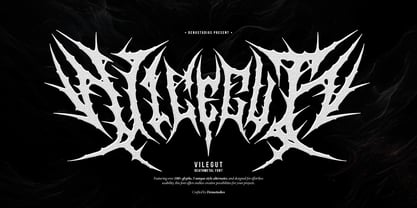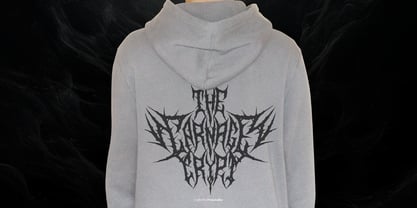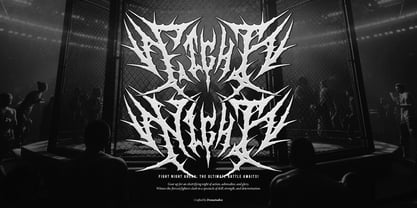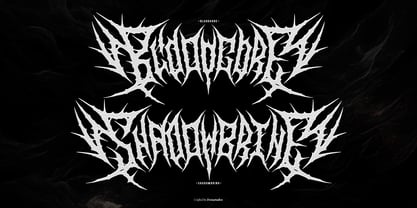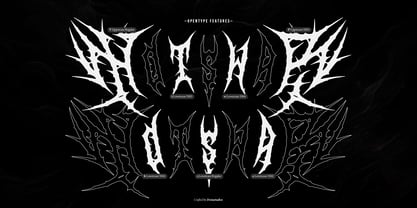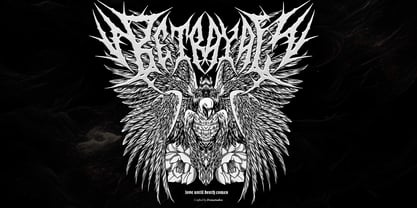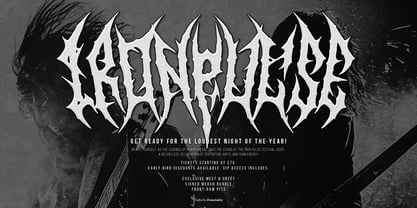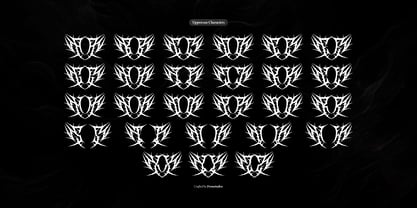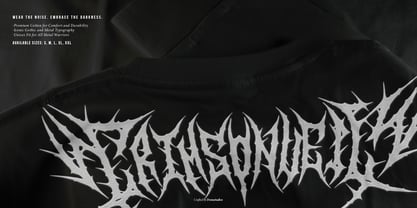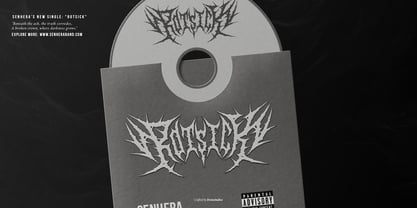
Vilegut
by Denustudio
The Vilegut Font Family was designed by Dede Nugraha and published by Denustudio. Vilegut contains 1 styles. More about this family
Vilegut | Death Metal Typeface, from Denustudios, suitable for any projects such as: logos, branding projects, homeware designs, product packaging, mugs, quotes, posters, shopping bags, t-shirts, book covers, name card, invitation cards, greeting cards, label, photography, watermark, special events, and all your other lovely projects that need a Death Metal Typeface taste.